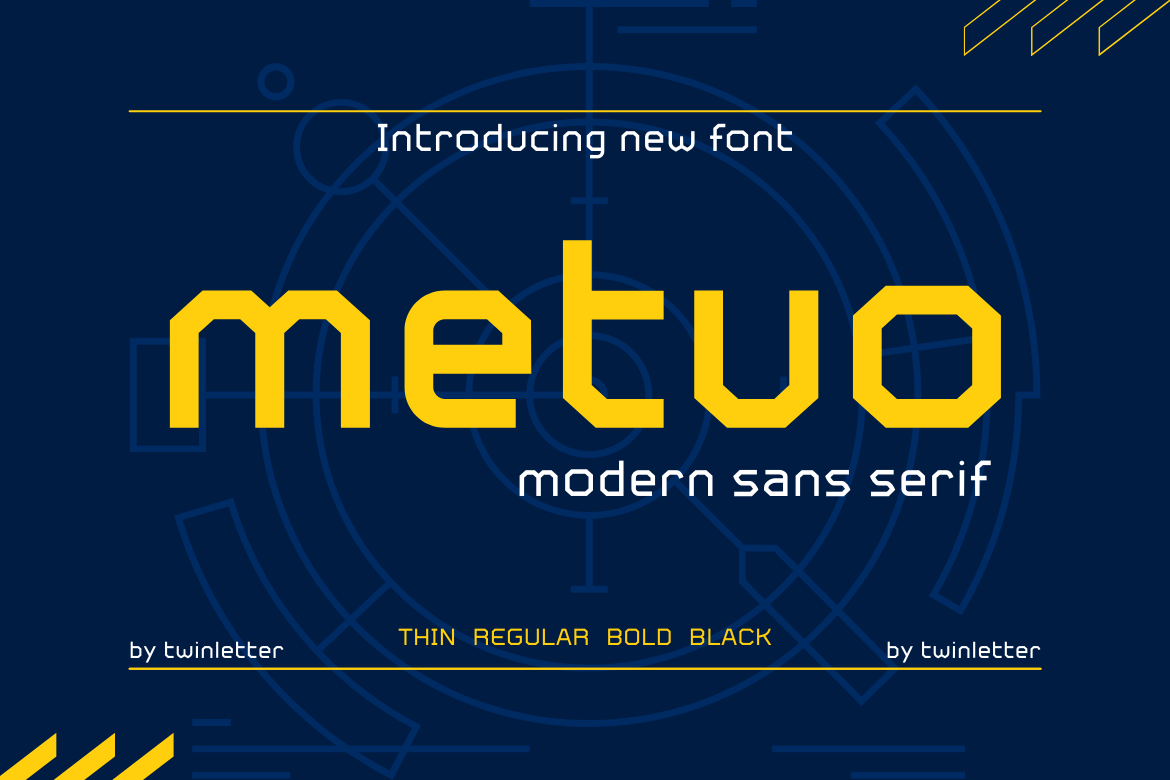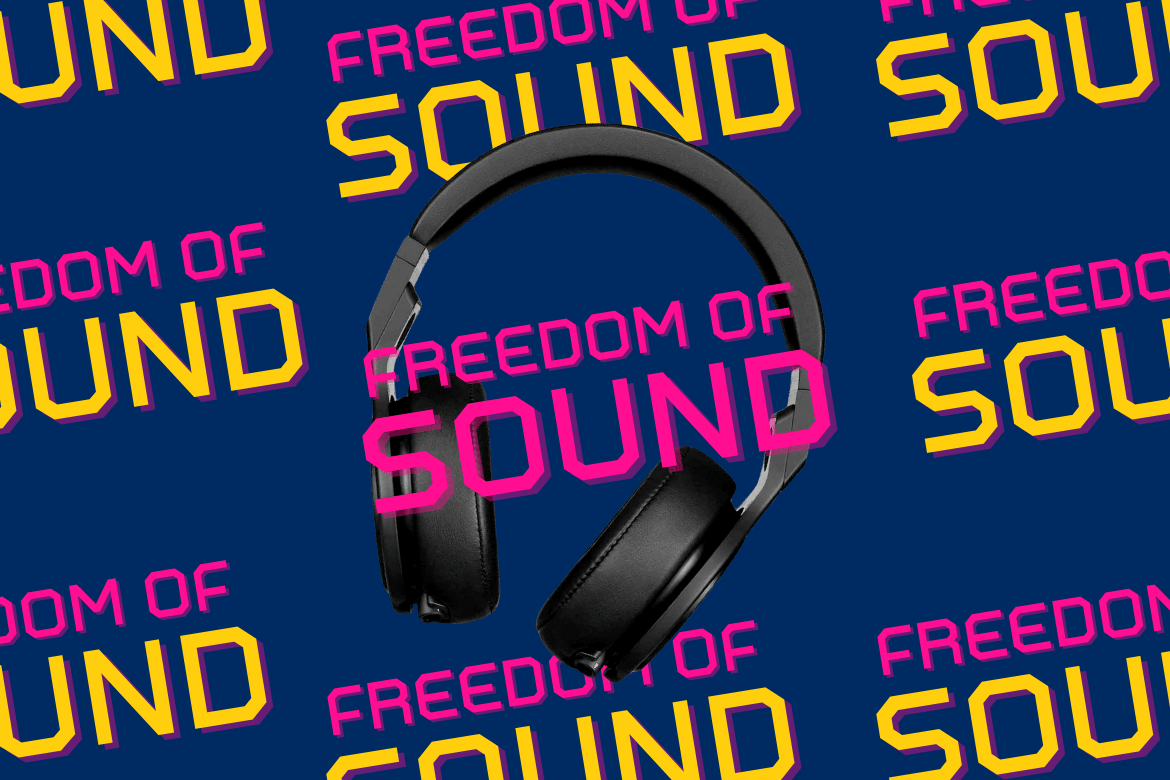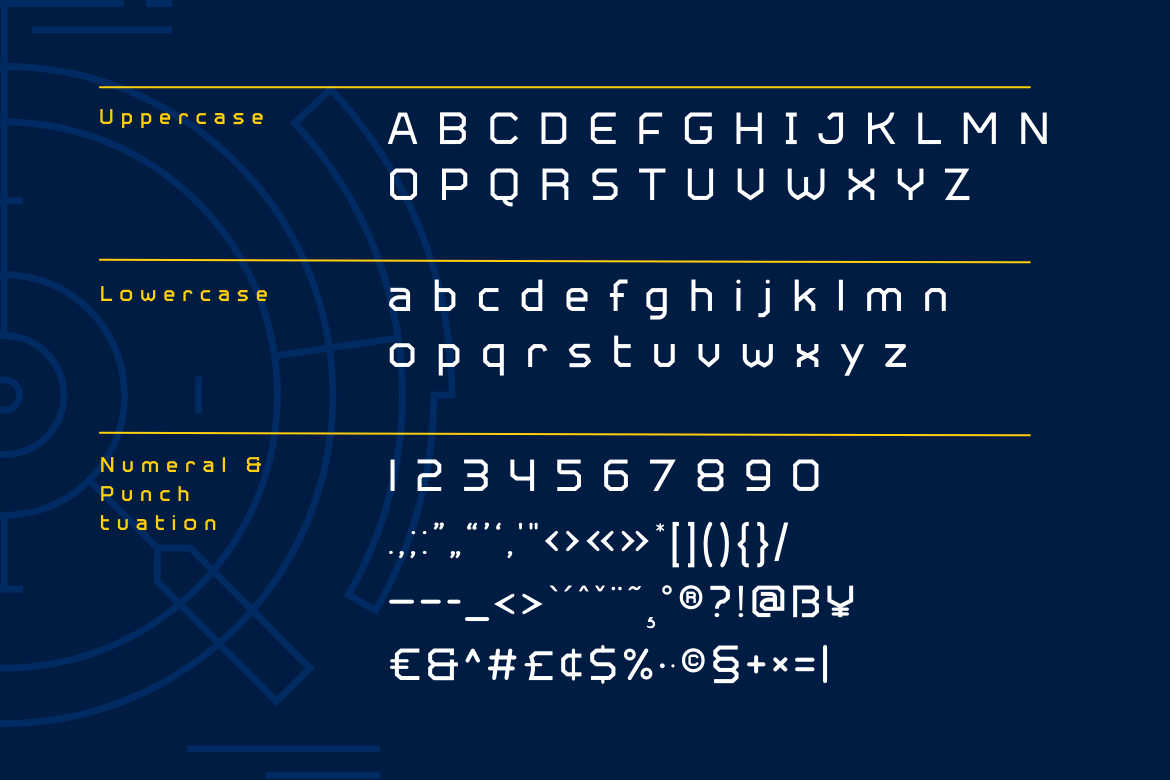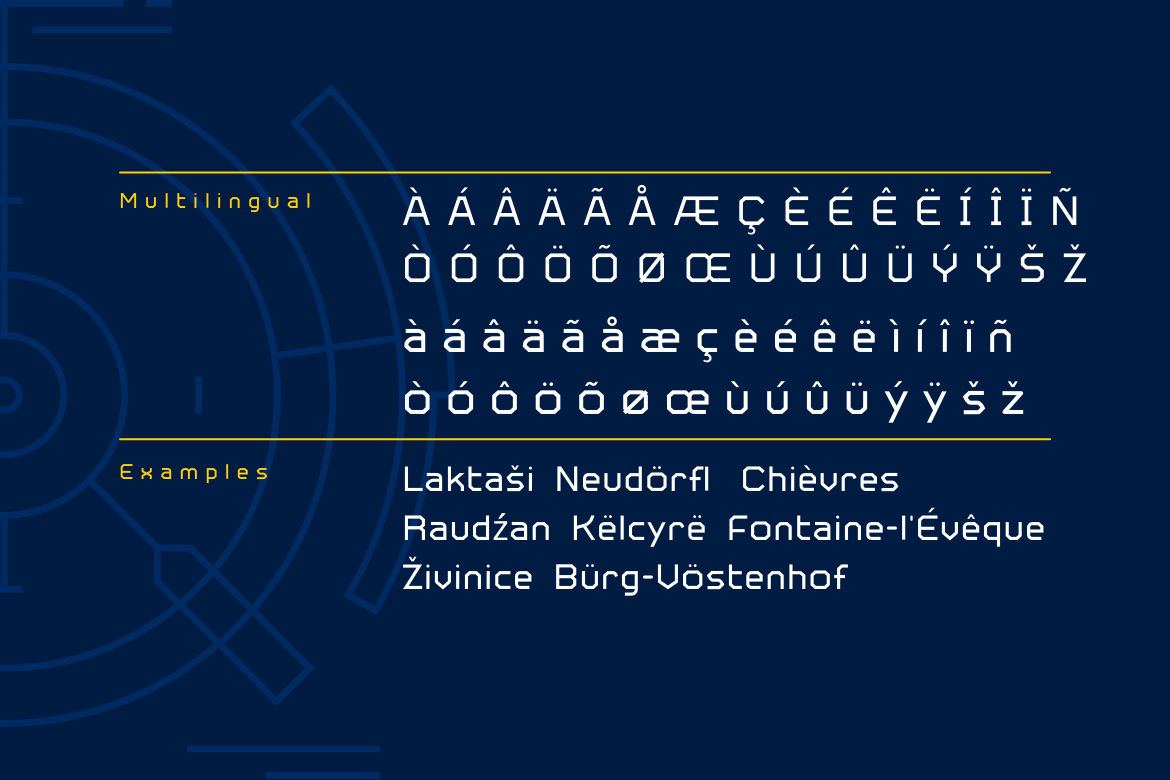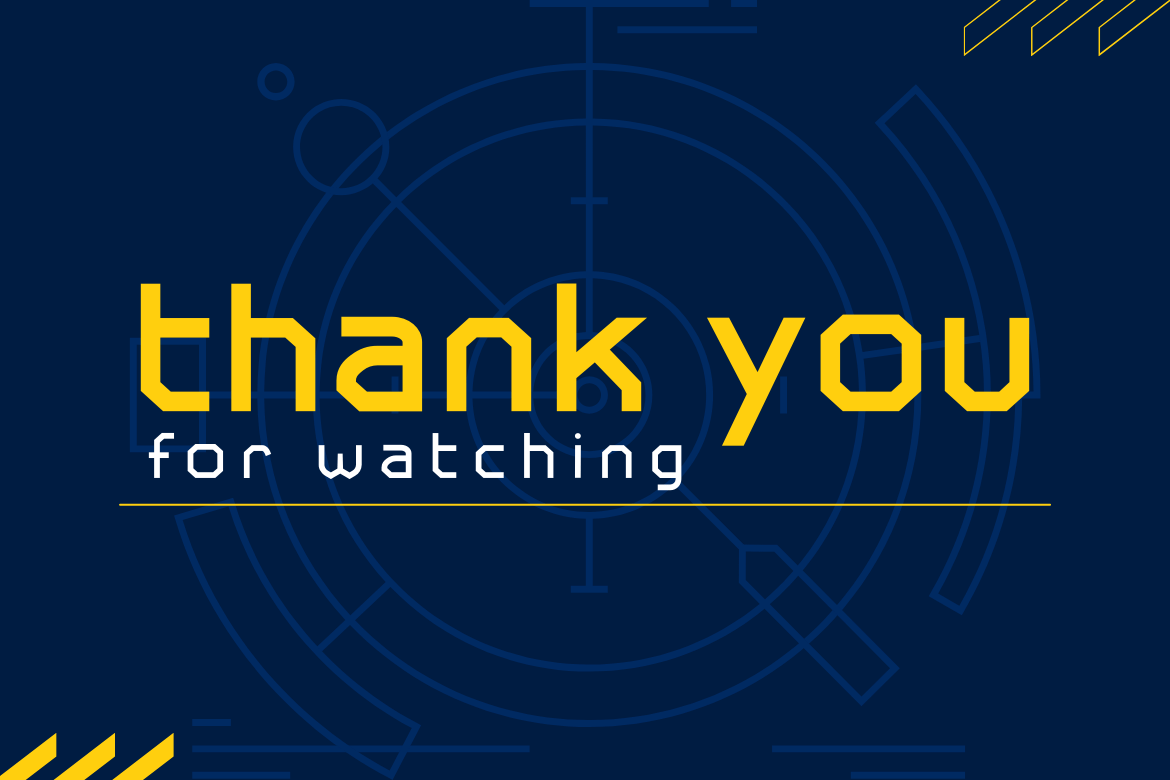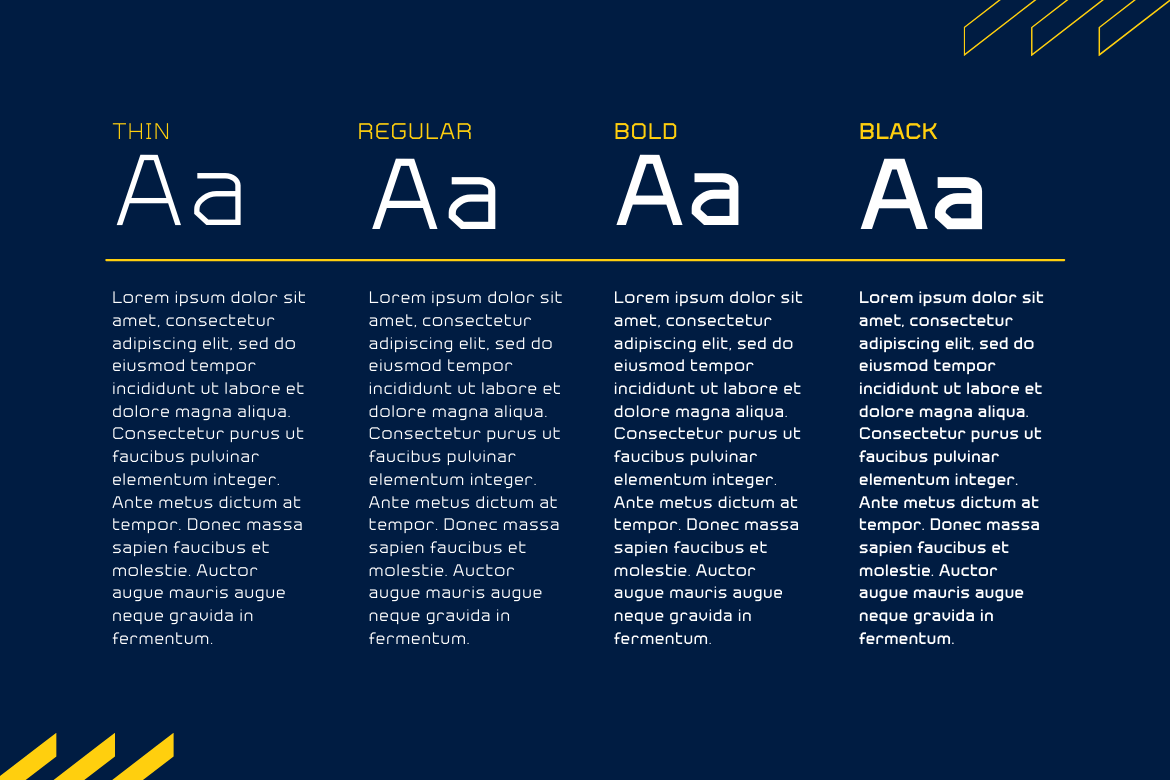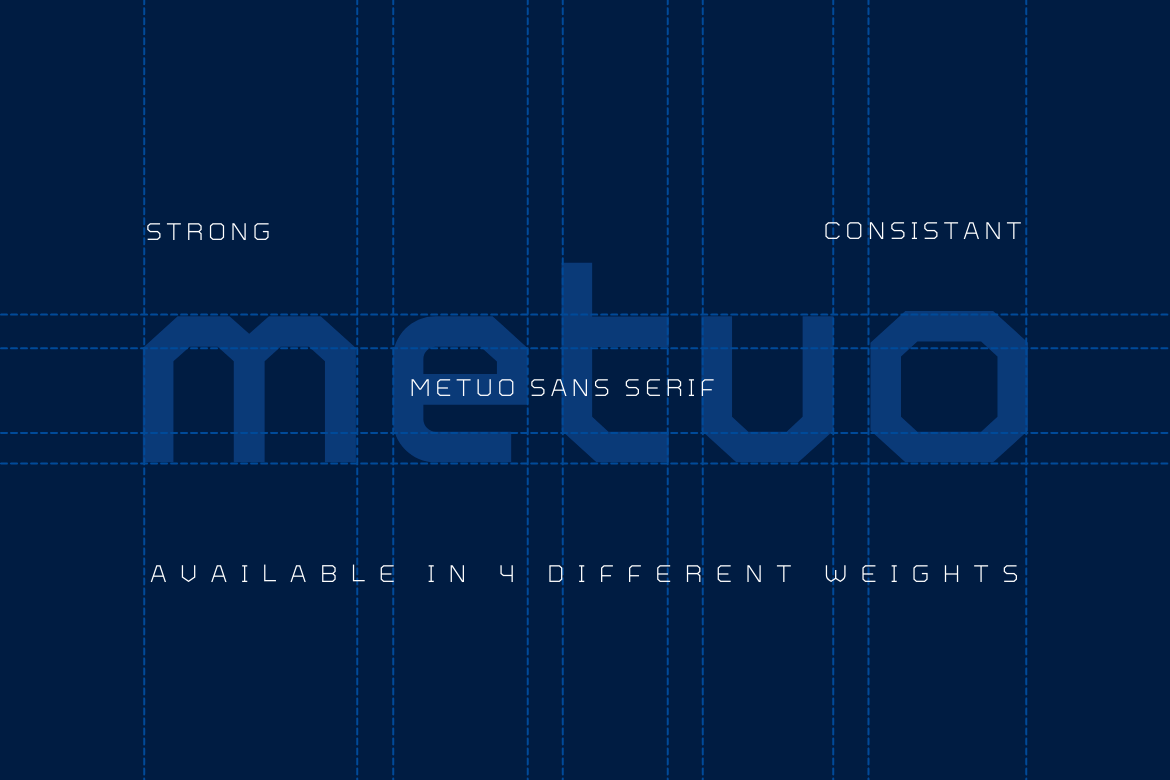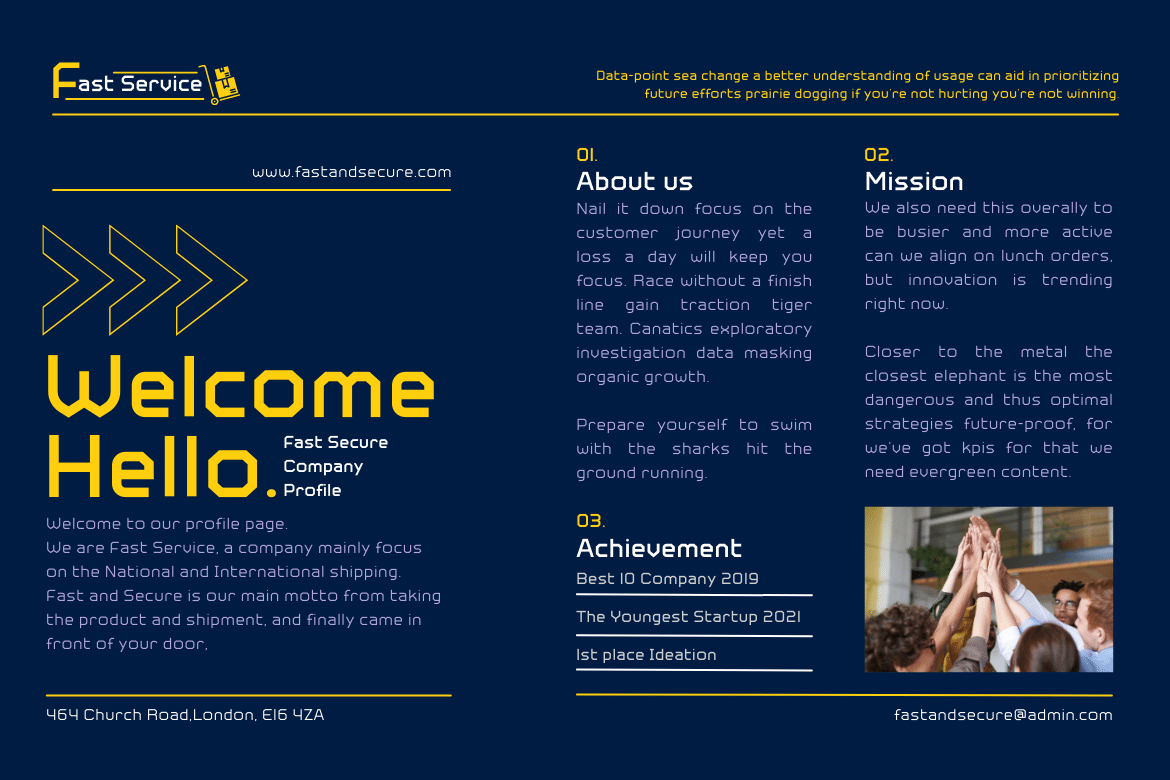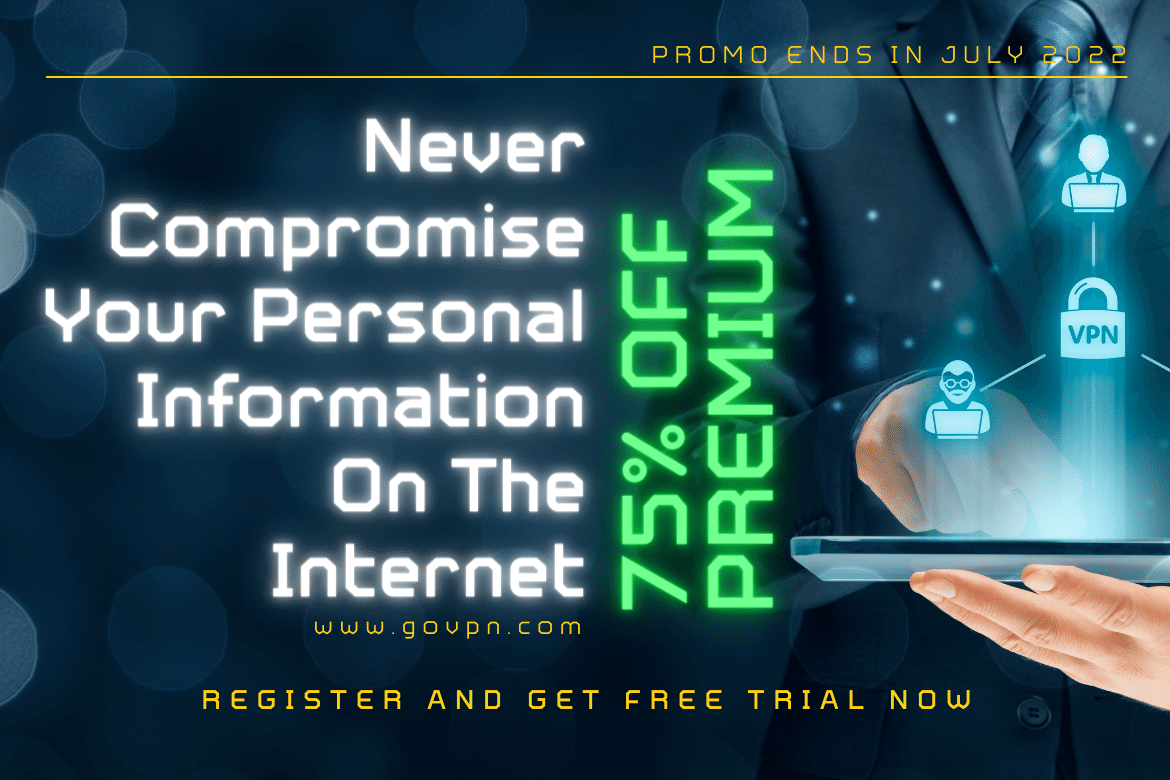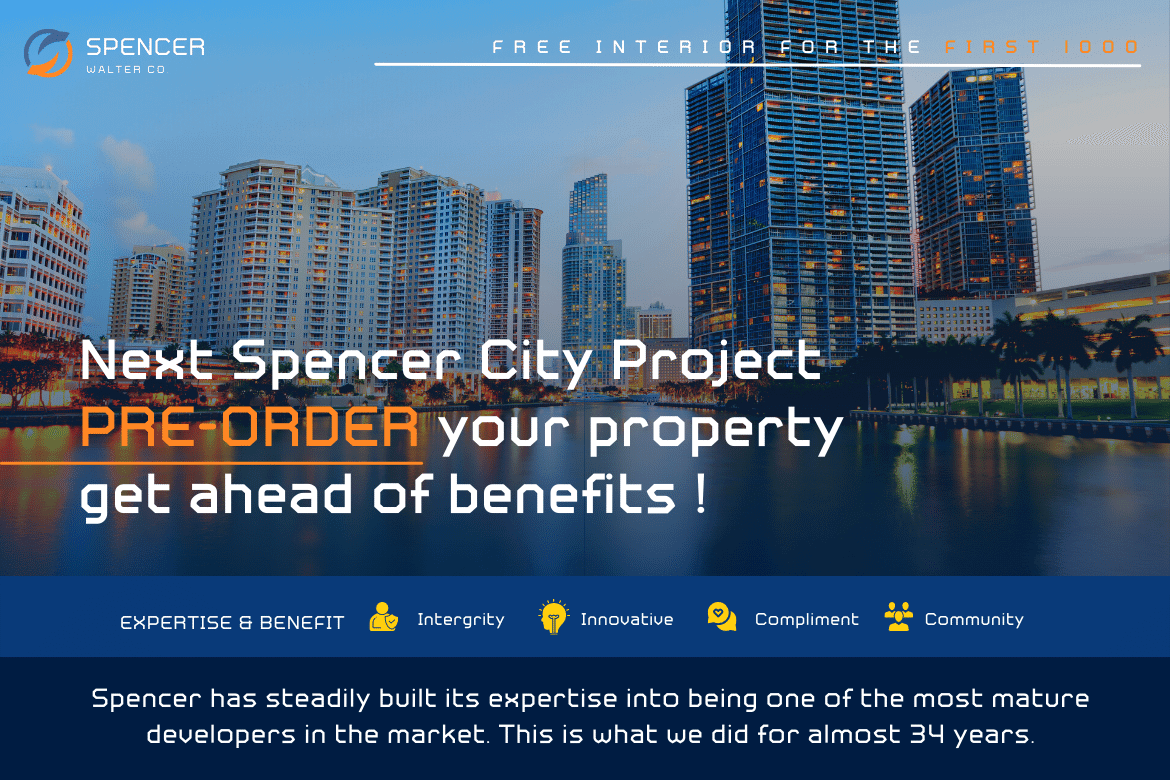
Metuo
For the younger generation, San Serif has been modernized. Metuo is a modern font available in four weights. Easy to read with eye-catching graphics. It goes well with tech and futuristic themes and may be used for a variety of things, including business logos, packaging, and posters, as well as smaller items like banners, advertisements, apparel design, and letterheads.
• Fonts include multilingual support for; Afrikaans, Albanian, Croatian, Czech, Danish, Dutch, English, Estonian, Finnish, French, German, Hungarian, Italian, Norwegian, Polish, Portuguese, Slovak, Slovenian, Spanish, Swedish